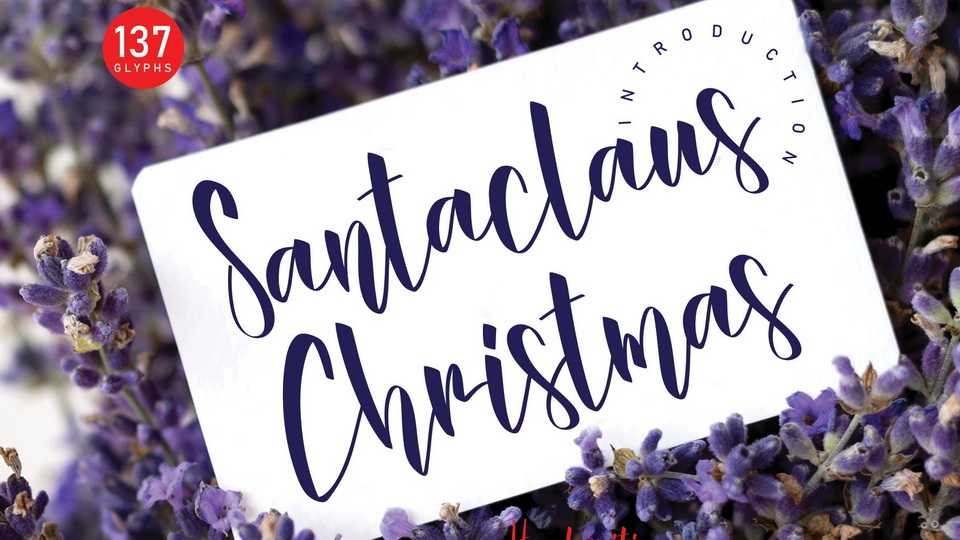
Download Santaclaus Christmas font, a beautiful calligraphy typeface made of beautiful creative strokes. Santaclaus Christmas font is perfect for your creative ideas, both formal and informal.